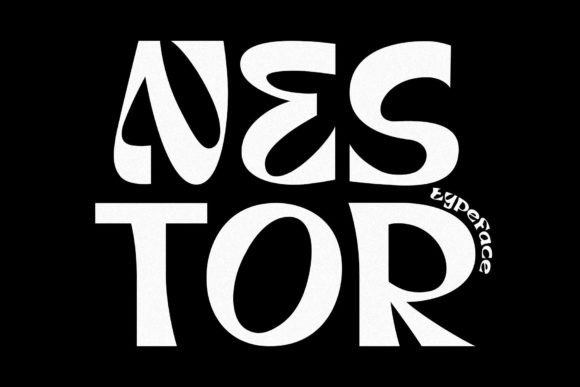
Nestor Font: The Retro Gem for Captivating Headlines and Designs
Journey back to the groovy era with Nestor Font, a retro-inspired display typeface that oozes charm and character. With its unique curves, bold personality, and captivating style, Nestor is the perfect choice for designers and content creators seeking a font that makes a statement.
Step into a world of nostalgia and creativity as you explore the endless possibilities of Nestor Font. Its distinctive design, reminiscent of vintage signage and magazine covers, adds a touch of retro flair to any project. Whether you're crafting eye-catching headlines, designing impactful advertisements, or creating vibrant posters, Nestor Font is your trusty companion.
Unleash your inner artist and let Nestor Font transform your words into captivating visuals. Its bold strokes and playful curves demand attention, making it ideal for branding, social media posts, and captivating quotes. Imagine your designs radiating with a retro charm that resonates with your audience, leaving a lasting impression.
Nestor Font's versatility extends beyond its retro appeal. Its bold and legible nature makes it a standout choice for headlines, ensuring maximum impact and readability. Whether you're designing for print or digital platforms, Nestor Font ensures your message is conveyed with clarity and style.
Dive into the world of Nestor Font and discover a treasure trove of creative opportunities. Its unique character adds a touch of playfulness to invitations, greeting cards, and product packaging. Let your imagination run wild as you craft designs that evoke a sense of nostalgia and delight.
With Nestor Font, you'll embark on a creative journey where retro charm meets modern elegance. Its versatility, bold personality, and captivating style will elevate your designs to new heights. Embrace the groovy vibes of Nestor Font and watch your creations come alive with retro charm and timeless appeal.